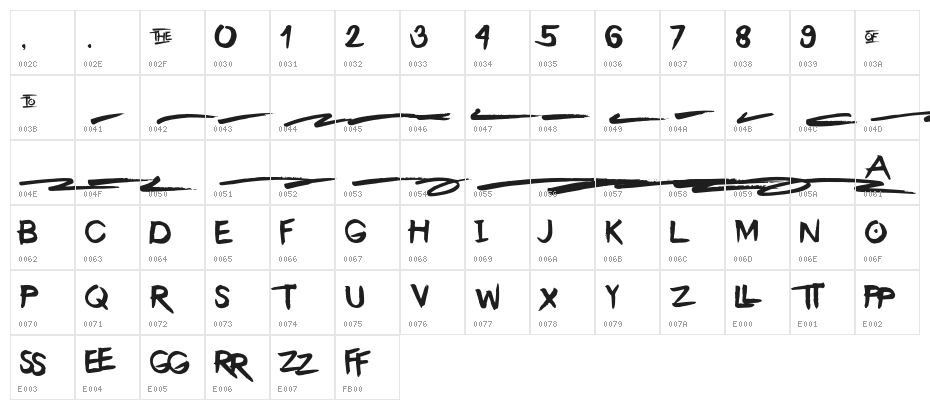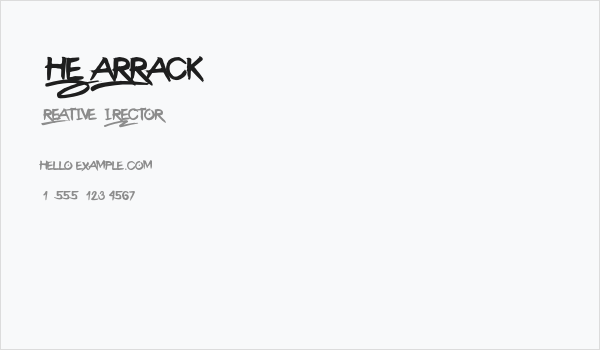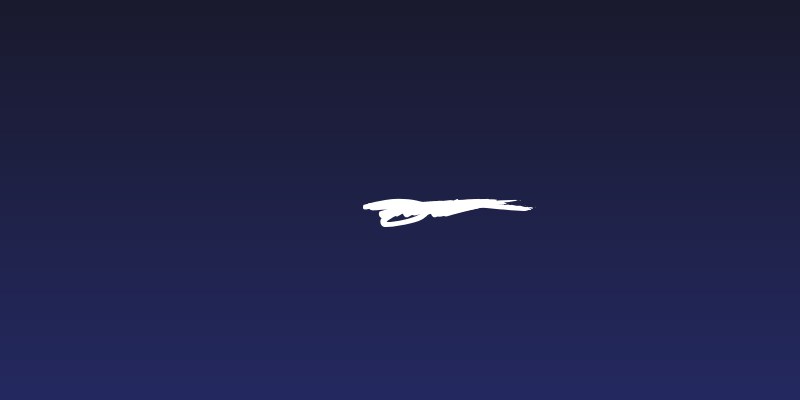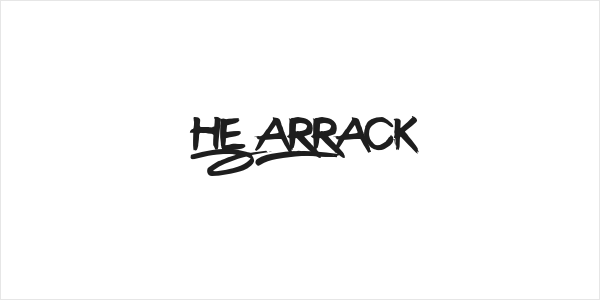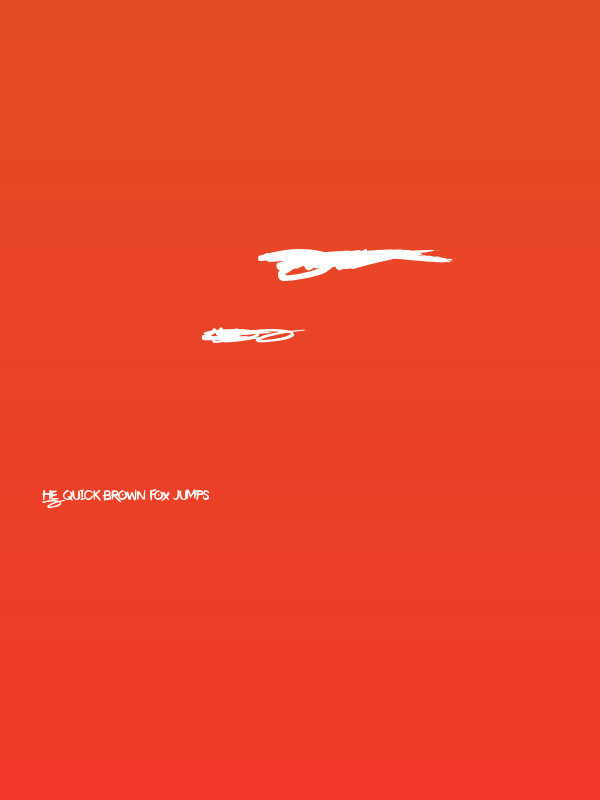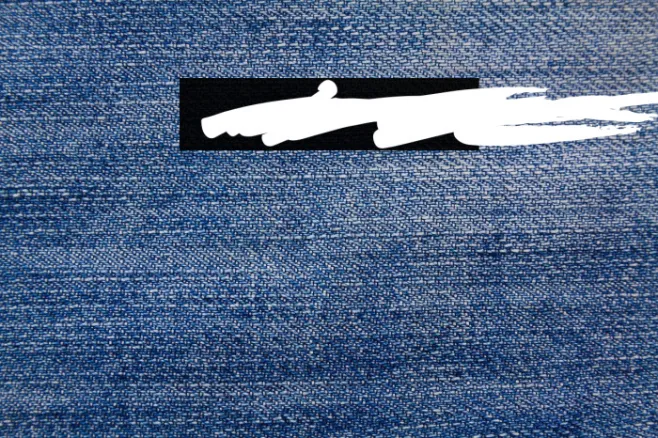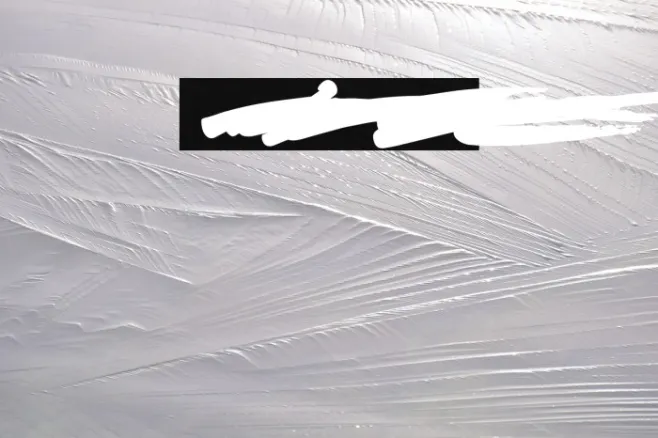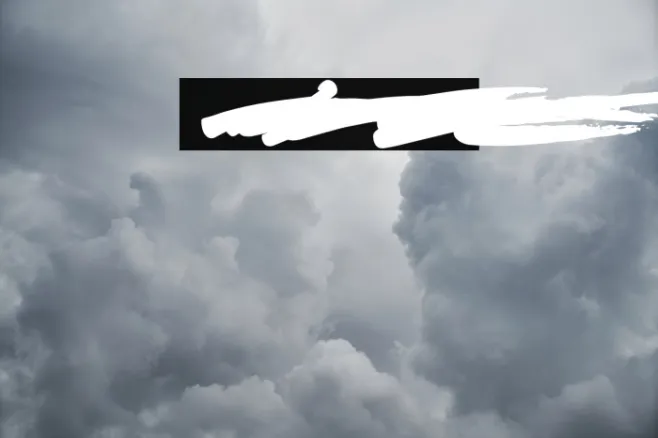
TheBarrack Font
TheBarrack Description
This font features a bold and expressive style with a hand-drawn appearance. The characters are uneven and have a brush-like texture, giving them a dynamic and artistic feel. The uppercase letters are prominent and slightly irregular, adding to the font's unique charm. The numbers and punctuation maintain the same bold and textured style, ensuring consistency throughout. This font is ideal for projects that require a strong visual impact and a creative touch.
| Overall Style | Artistic, Expressive |
| Proposed Projects | Ideal for posters, album covers, artistic branding, and creative advertising campaigns. |